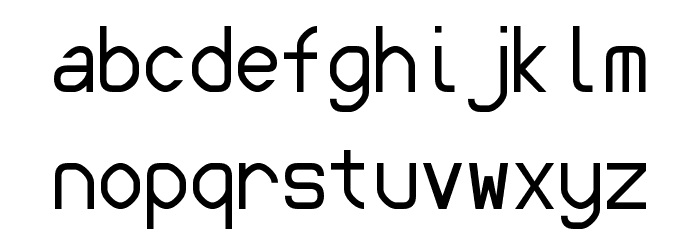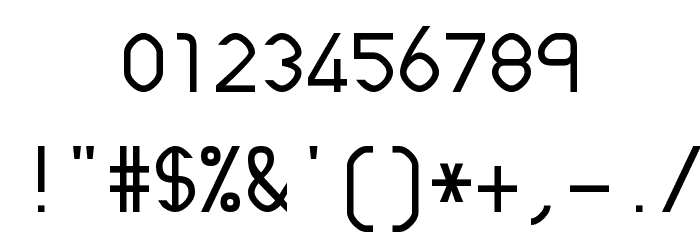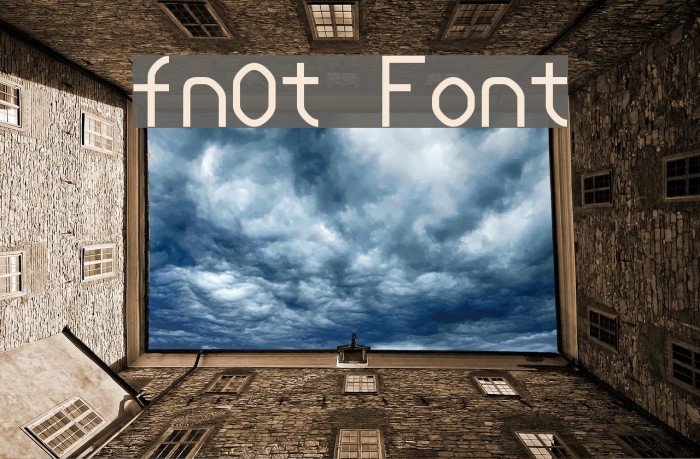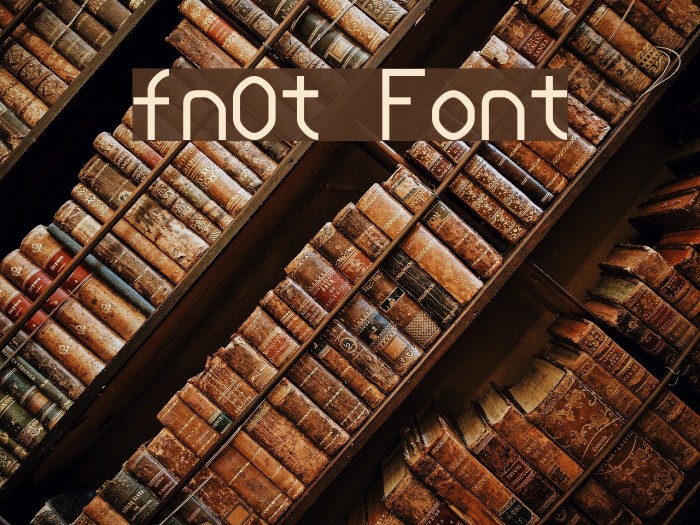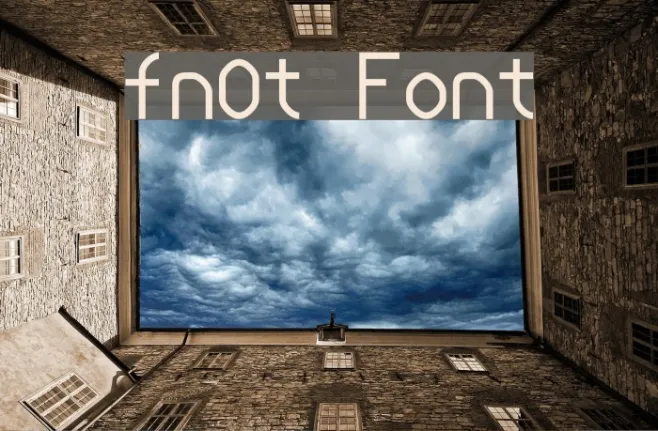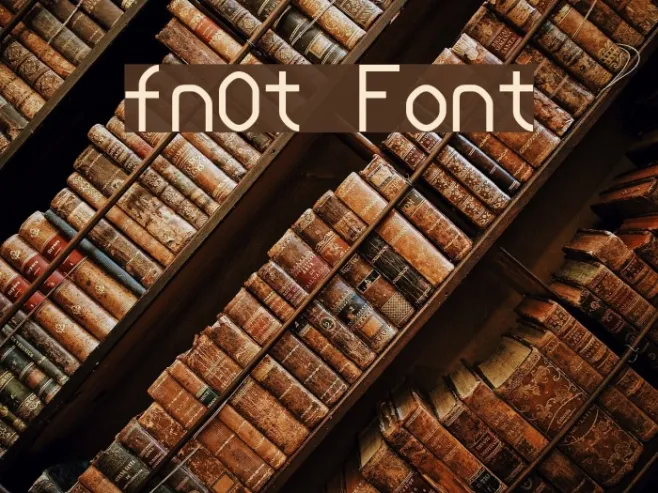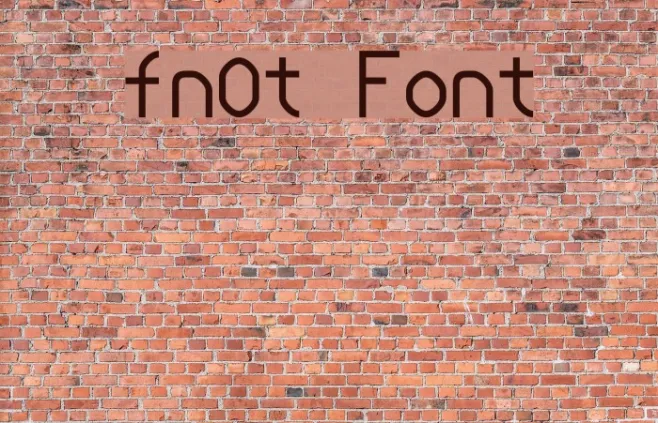
fn0t Font
This font features a clean, geometric design with a modern aesthetic. The characters are constructed with consistent stroke widths, giving it a uniform appearance. The uppercase letters are bold and prominent, while the lowercase letters maintain a similar structure with slightly softer curves. The numerals are clear and distinct, making them easily readable. Special characters are designed to match the overall style, ensuring a cohesive look. This font's simplicity and clarity make it versatile for various applications.
A modern, geometric font with consistent stroke widths and a clean appearance.
- Proposed Projects: Ideal for branding, digital interfaces, signage, and editorial design projects.